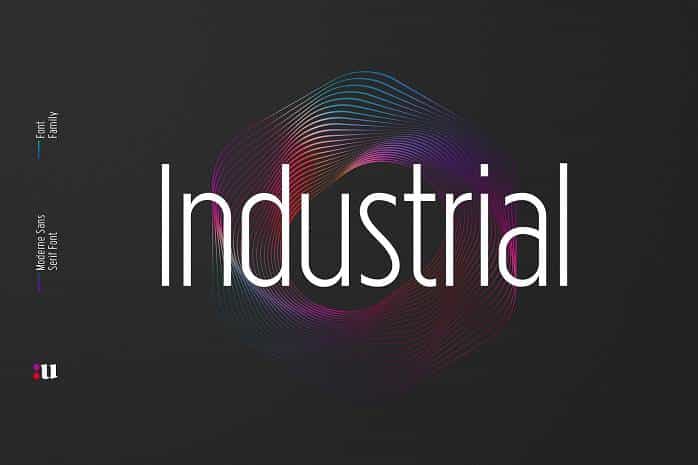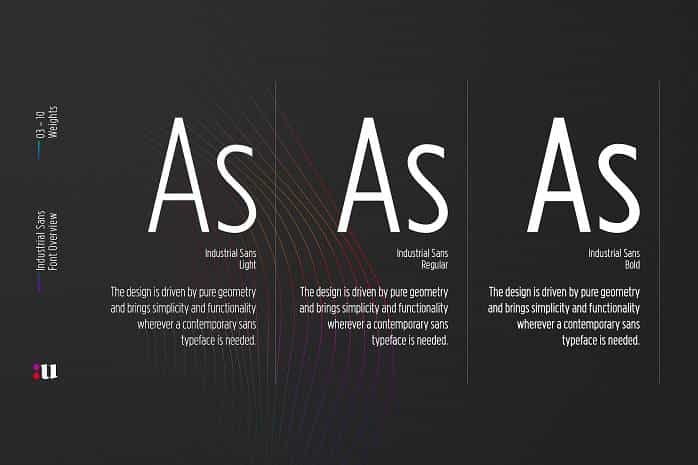
Industrial is a modern sans serif typeface with three additional weights and their corresponding italics. The “Industrial design” generates and advances concepts and specifications, which maximize the utility, value and aesthetic of products. In fact, this is expressed through an idea behind each glyph of our font family when geometry is necessary to be considered a special attention for the sake of keeping optical precision, as well as proportions continuance. Indeed, the entire concept of this typeface is versatility and legibility thus making this type functional for any text in small as well as in large sizes.